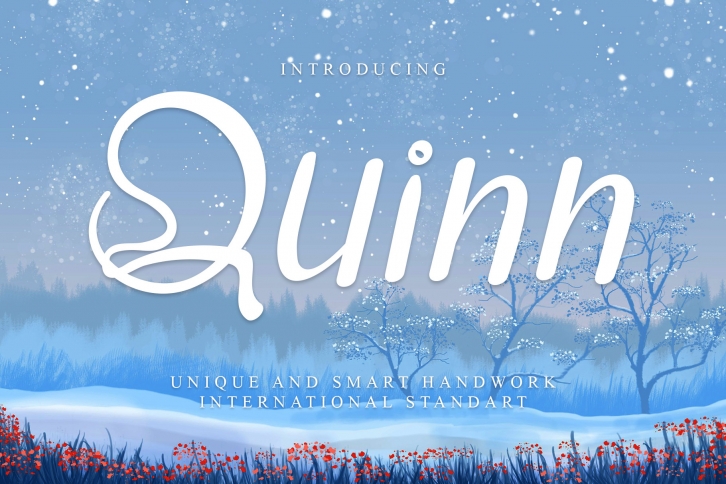
Quinn is a beautiful handwritten font. It is perfect to be used on wedding invitations, greeting cards, billboards, logos, business cards, and any other design that requires a handwritten touch.